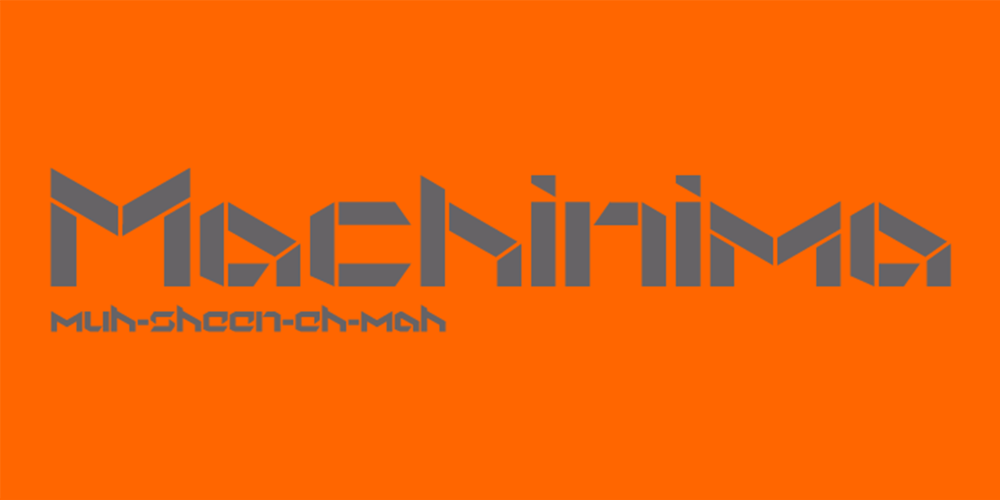
StealWerks
StealWerks font
StealWerks Font Family was designed by Jonathan Hill and published by The Northern Block. StealWerks contains 6 styles and family package options. An industrial, mechanical font, strongly influenced by the British steel industry and heavy machinery. StealWerks was forged to give a solid impact. We recommend its usage on skateboards, BMXs, mountain bikes, snowboards or any object that is subject to harsh treatment.